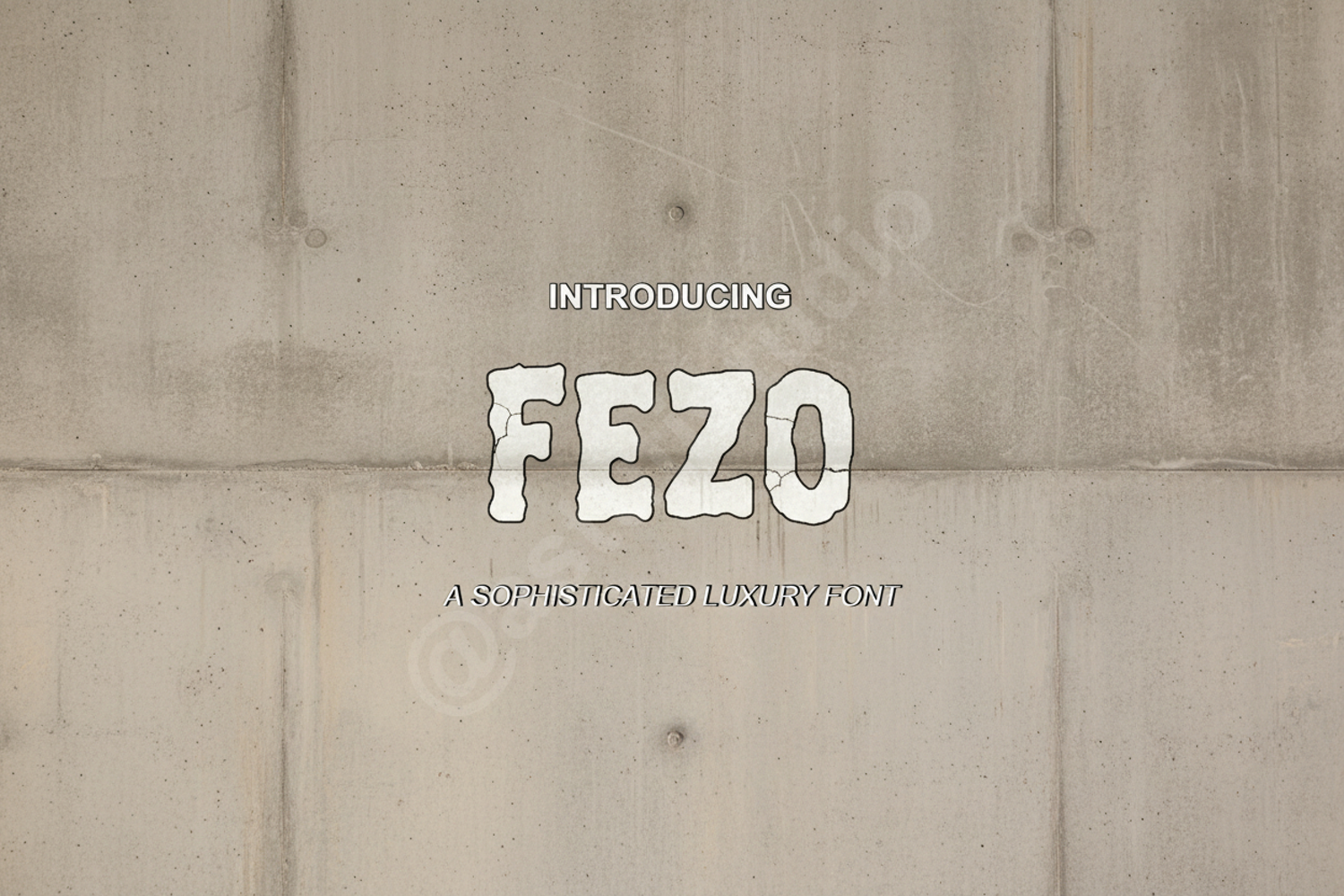
Fezo - Modern Minimalist Sans-Serif Font
Fezo
Introducing Fezo, a premium sans-serif typeface that embodies modern elegance and minimalist design. Crafted with precision, Fezo offers a clean aesthetic that enhances any creative project without overwhelming the visual balance. Its balanced proportions and crisp lines make it a go-to choice for designers seeking a professional edge and timeless appeal.
- Branding and Corporate Identity
- Professional Logo Design and Wordmarks
- Minimalist Editorial and Magazine Layouts
- Social Media Content and Digital Marketing
- High-End Product Packaging and Labels
- Modern Wedding Stationery and Invitations